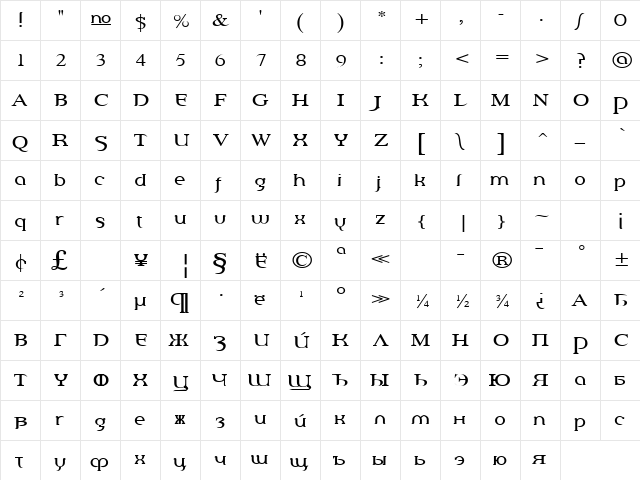
Percolator Text Cyr Regular
Design Context for Percolator Text Cyr Typeface
Percolator Text Cyr is a composed and adaptable typeface that performs quietly and consistently across a wide range of design contexts.